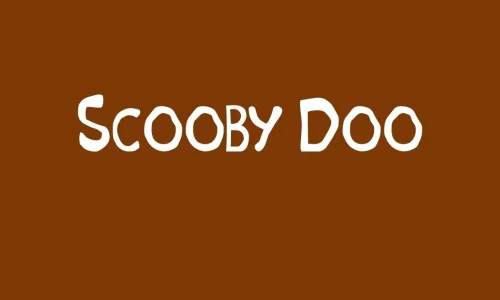
The Cartoon 2 Movies Font has a playful and animated style. Its fun, bouncy letters give off a vibrant and lively feel to any text. This font is often seen in designs related to animation or children’s content, adding a sense of joy and excitement.
Its whimsical appearance makes the text look cheerful and inviting. Whether used in posters or comic designs, this font brings a sense of fun and liveliness to the writing. The true crimes font can be used to create exceptional designs with significant impact.
| Name | Cartoon 2 Movies Font |
| Designer | Galdino Otten |